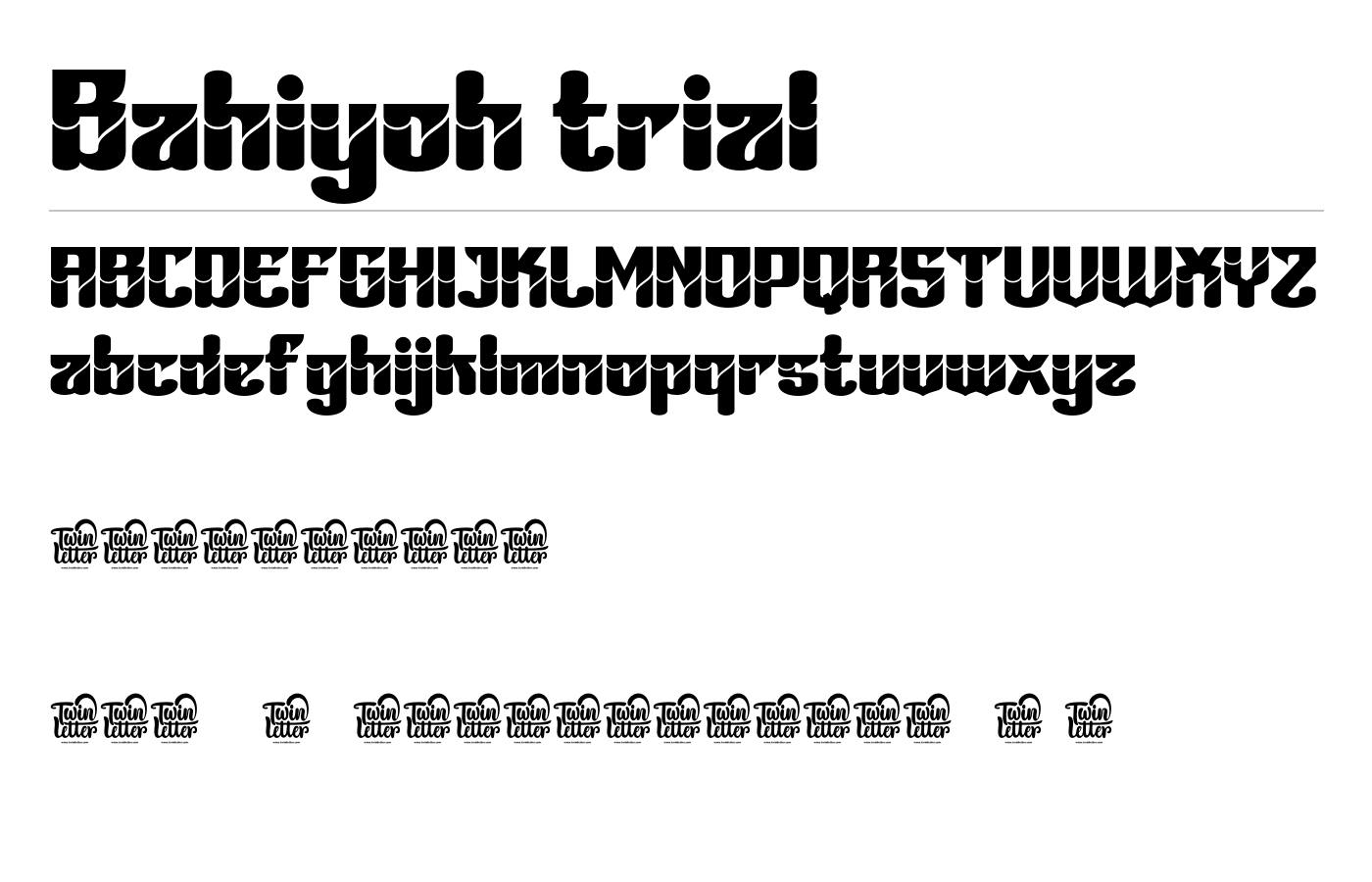
Bahiyoh Trial is a bold, stylized display font featuring thick, blocky letterforms with a unique layered effect that combines sharp angles and soft curves. Its heavy weight and condensed proportions give it a strong, modern feel with a touch of artistic flair, making it ideal for eye-catching headlines, logos, and creative branding that seeks to stand out with personality and impact. This font works best in large sizes where its distinctive design can be fully appreciated.
Bahiyoh trial Font
About Bahiyoh trial Font